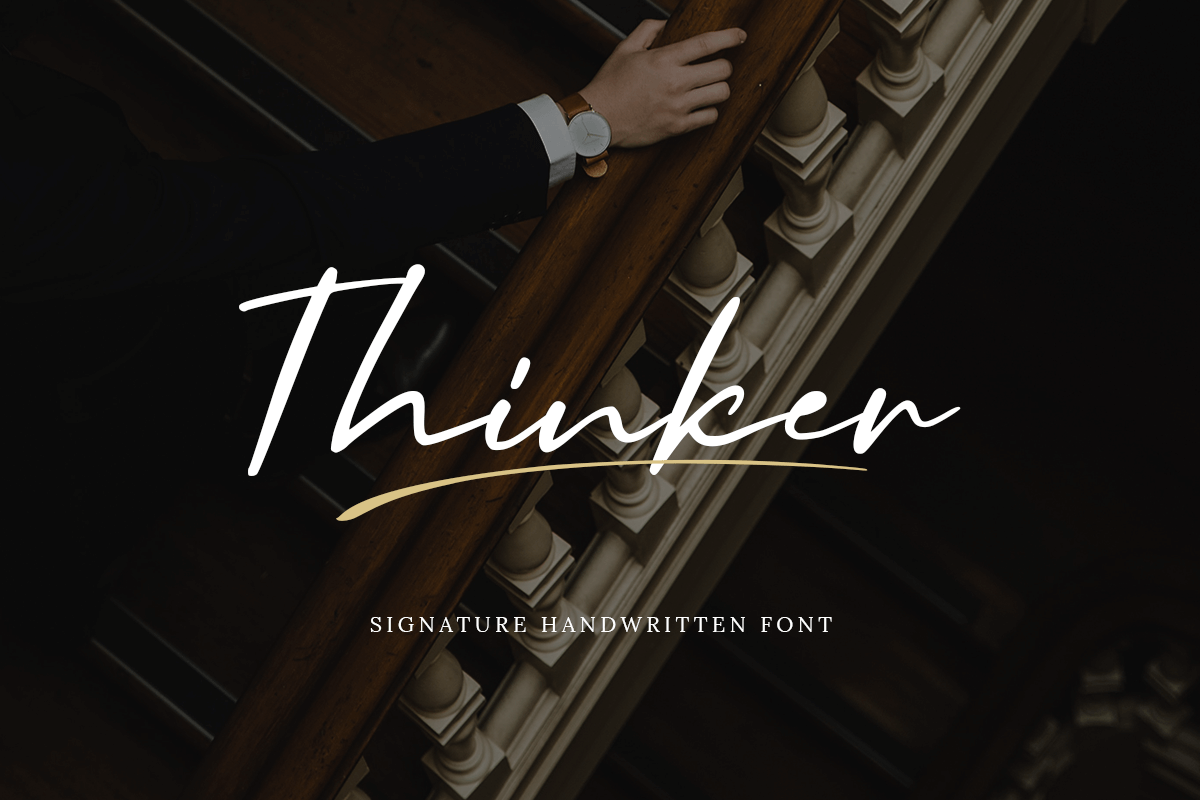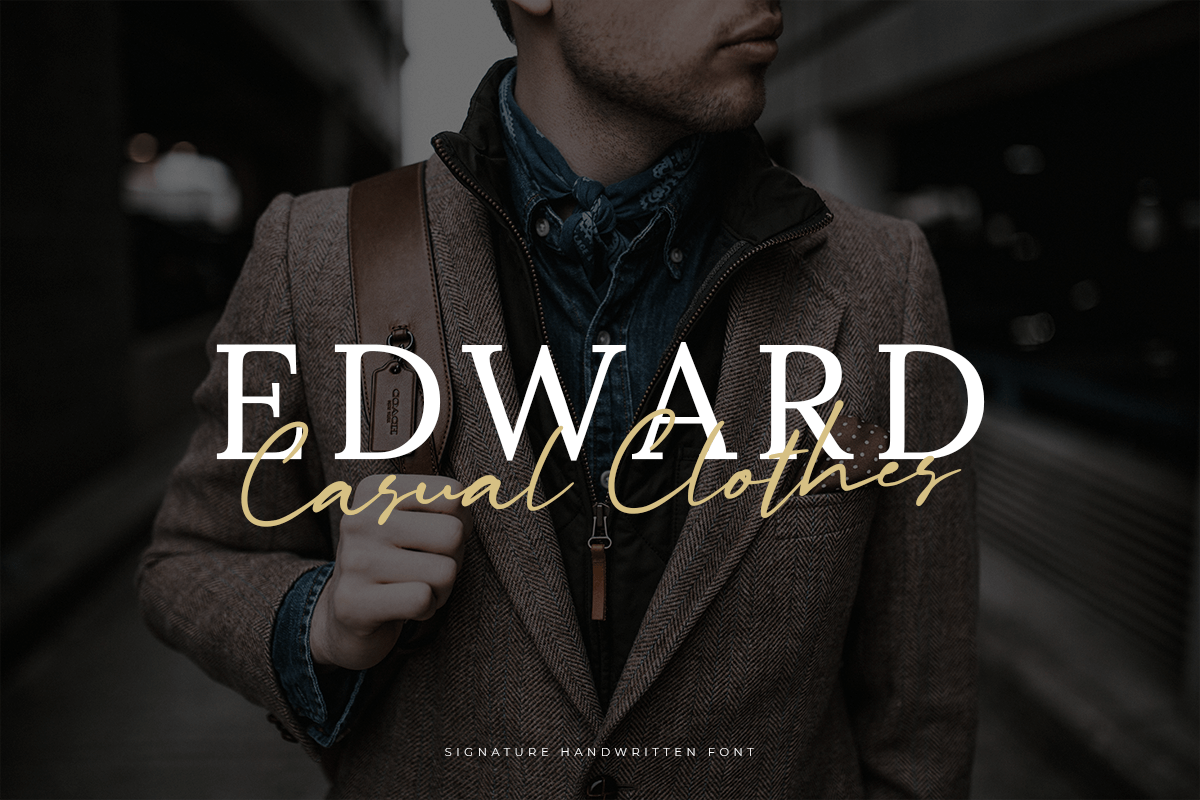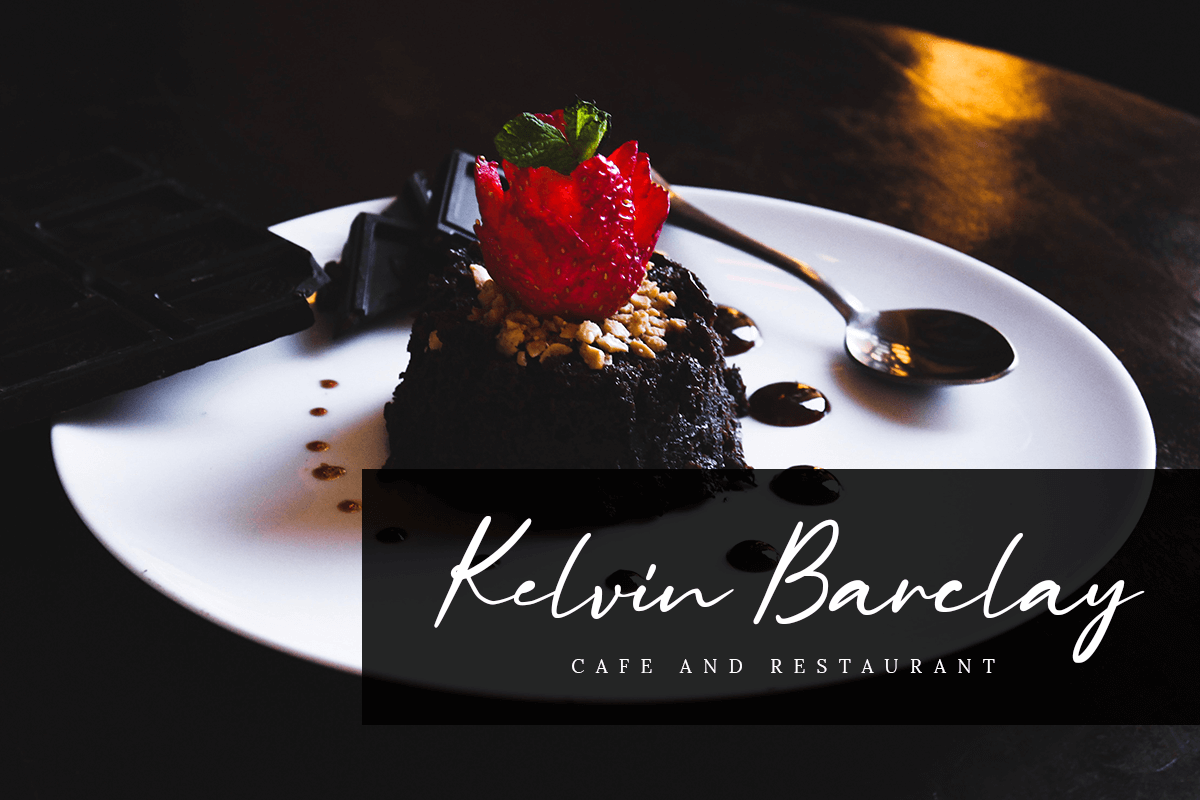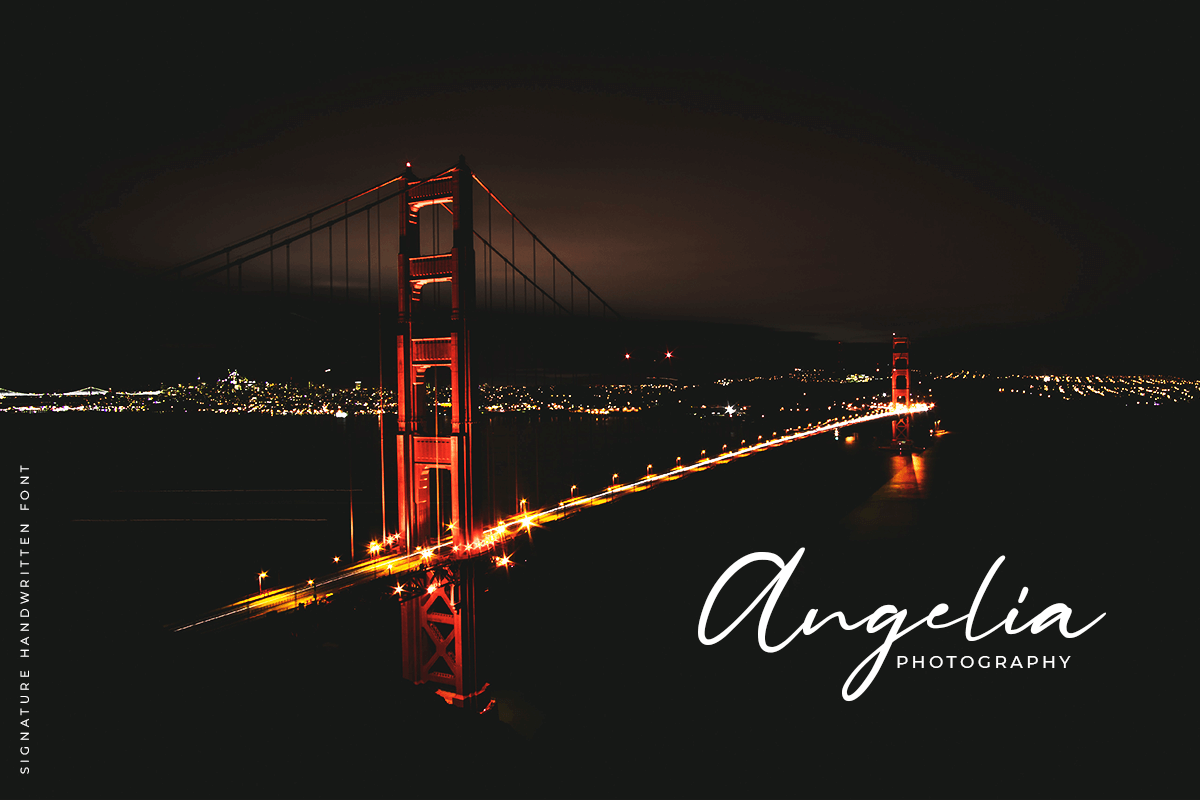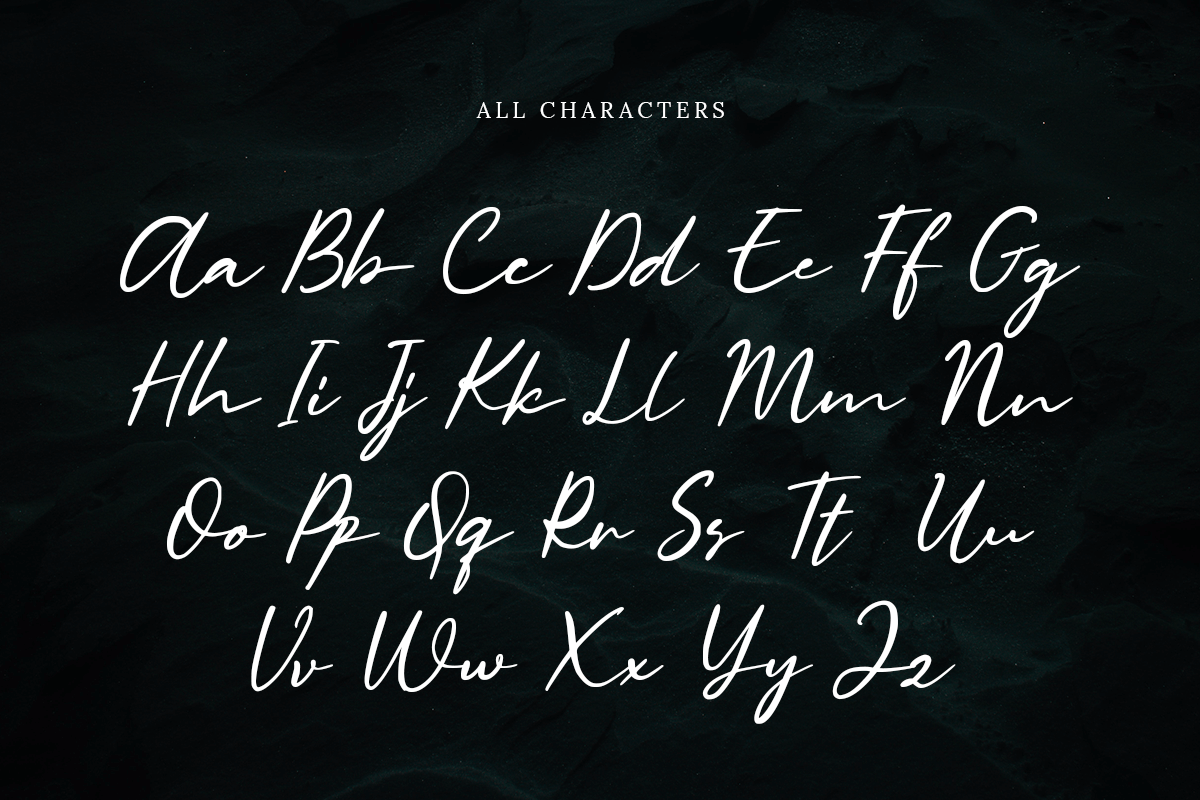
Thinker
-Signature Handwritten Font
Thinker
Thinker a Modern Signature Handwritten Font. Inspired from beauty and feminine style very good for signature, stationery, logo, typography quotes, magazine or book cover, website needs.